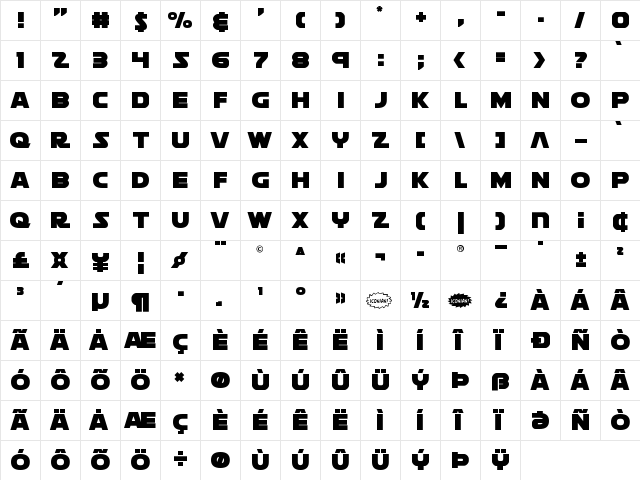
Soloist Straight Regular
Design Context for Soloist Straight Typeface
Soloist Straight offers clean, dependable letterforms without strong stylistic allegiance, making it a practical choice for designers who need flexibility.